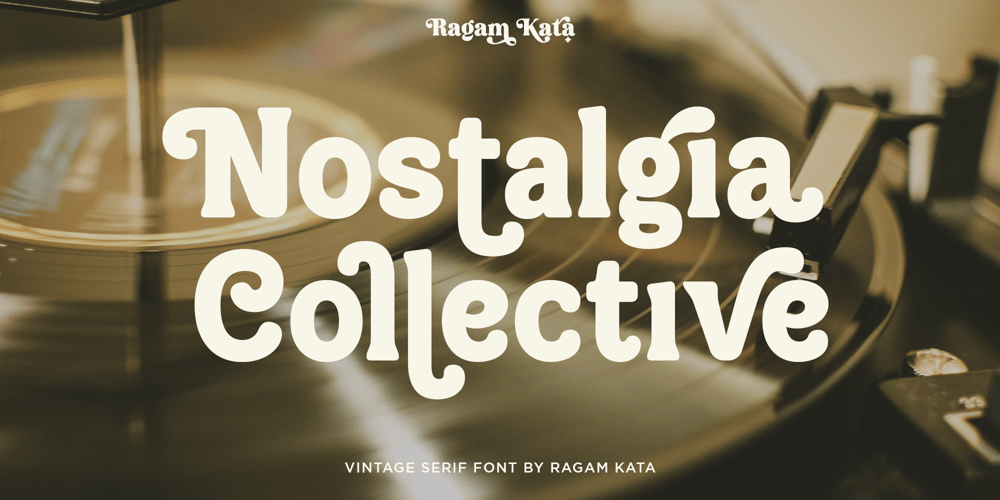
Nostalgia Collective
Nostalgia Collective font
Nostalgia Collective Font Family was designed by Yogiswhara Dio Prakoso Riadi and published by RagamKata. Nostalgia Collective contains 2 styles and family package options. Nostalgia Collective is a vintage serif font.With many alternate features for each letter, Nostalgia Collective provides flexibility and variety in the appearance of the text. Each letter has a unique alternative, adding a creative and eye-catching touch to your designs. Features :- Regular, Italic- Ligatures & Alternates- Letters, numbers, symbols, and punctuation- Multilingual Support